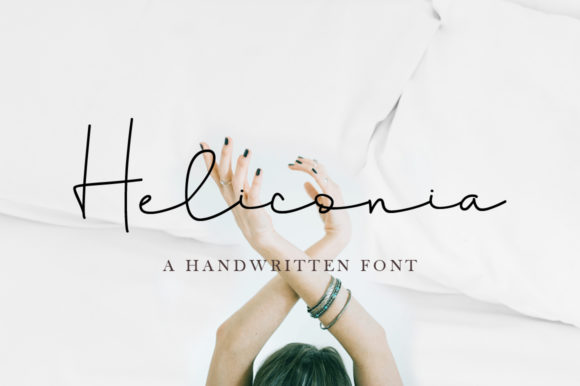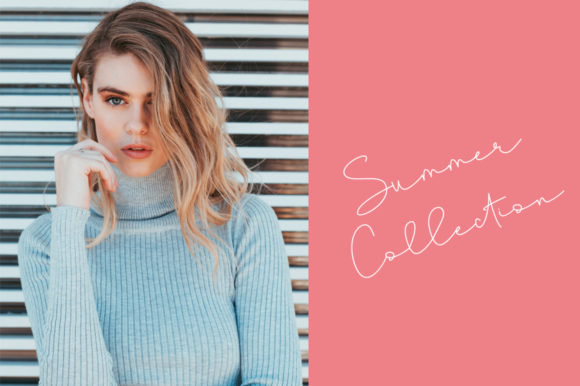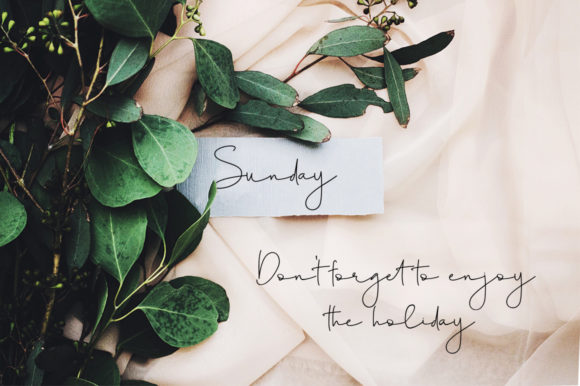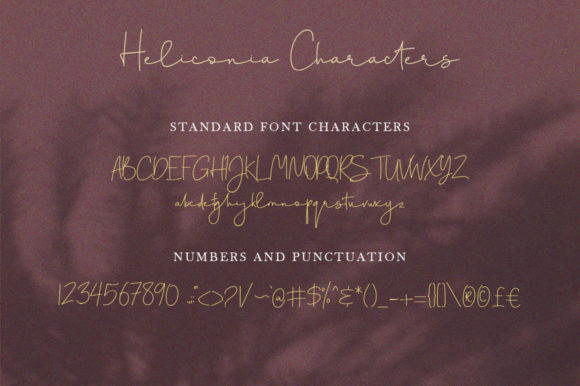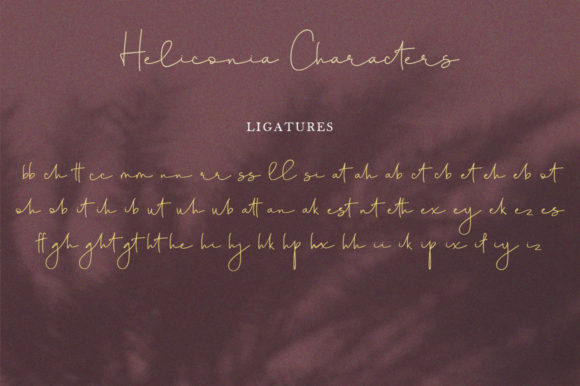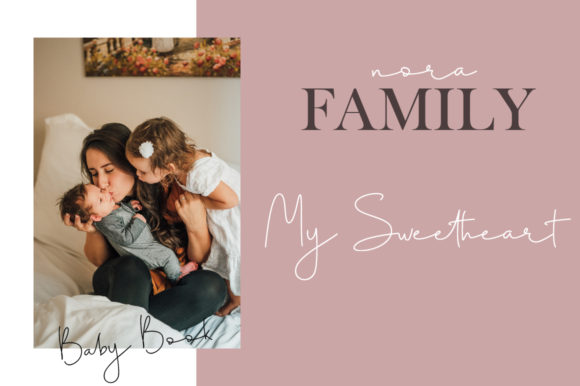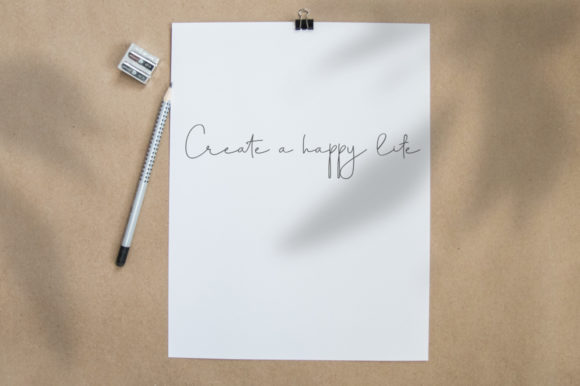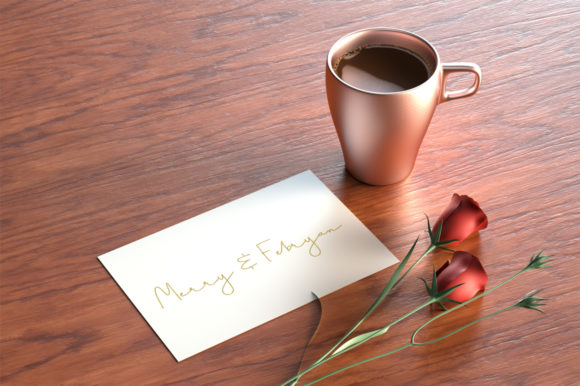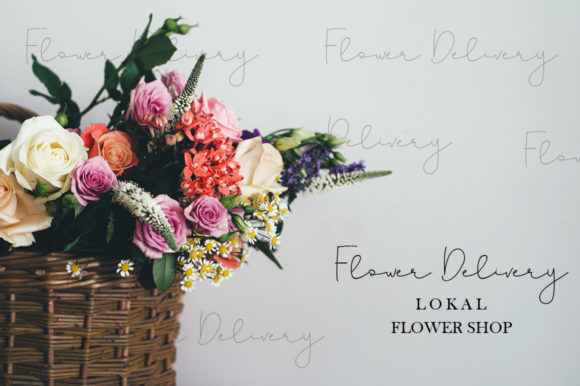
Heliconia Script Font
About Heliconia Script Font
Heliconia is a modern, moinimal and light handwritten font with an incredible feel. Get inspired by its organic feel!